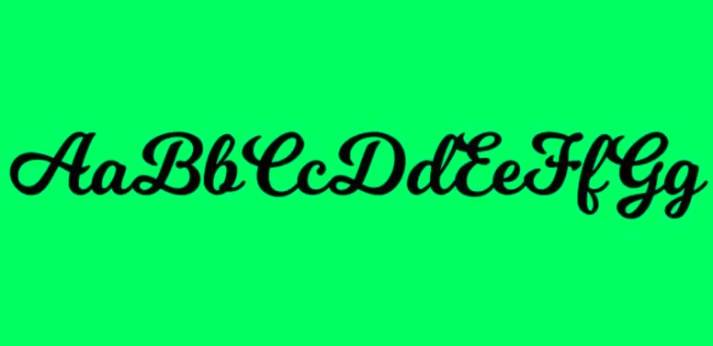
Introducing Milkshake font which was designed by Laura Worthington. Today, we are going to present one of the famous script font: Milkshake Font.
This modern font is a brush font script. It has created by The Hungry JPEG for the first time on 20 September 2013. And Laura Worthington had designed and released it on 11 May 2016. The Milkshake brush font got too much popularity after releasing it in no time. And on the other hand, the demand for this brush script font is also increasing.
Milkshake Font has 669 unique Glyphs, 87 swashes, ten ligatures and 1200 Units per em. Moreover, this font has an 802 ascender order and -240 Descender order. Furthermore, this display typeface includes awesome ligatures and appealing numerals. With up to eight alternates that allow choosing the good glyphs for designers’ projects.
This remarkable script font has a fancy design and unique styles. Each and every character has great potential even the letters in large sizes, the letter form features great legibility without a doubt. The letters consist of a quality handwritten font family.
Milkshake is an elegant, simple, and beauty signature script font with a handwritten style. This great font will be perfect for any signature project. The best is that this font is free for your personal as well as for the commercial uses. And here you can download this brush typeface easily just click on the download button and have your font in a single click.
This remarkable font offers beautiful typographic harmony for a diversity of design projects, including logo designing, printing on certificates, greeting card, business cards, useable for printing on fabric industries, etc.